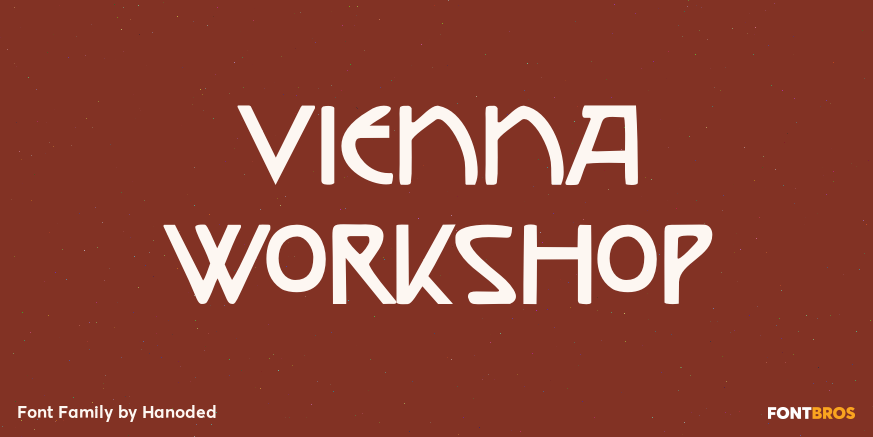
About Vienna Workshop
The Vienna Workshop was a production community of visual artists, which operated from 1903 to 1932. The emphasis lay on fine craftsmanship and its motto was: ?Better to work 10 days on one product than to manufacture 10 products in one day?. The typeface…